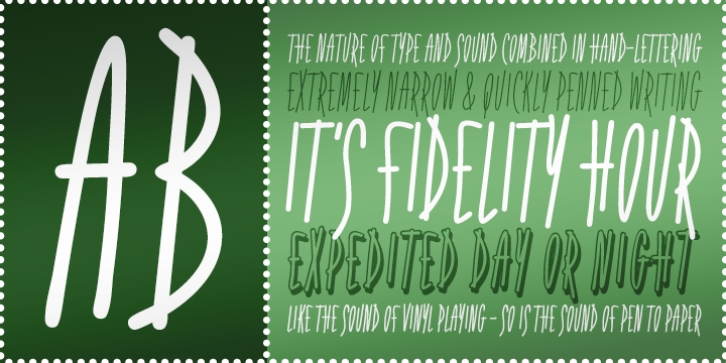
Fidelity Hour BTN downloadDesigner: Brian J. Bonislawsky
Publisher: Breaking the Norm
Fidelity Hour is a tall, narrow, all-caps, handwritten typeface that screams retro inspiration.
This high-fidelity typestyle comes with various weights and shadow variants.